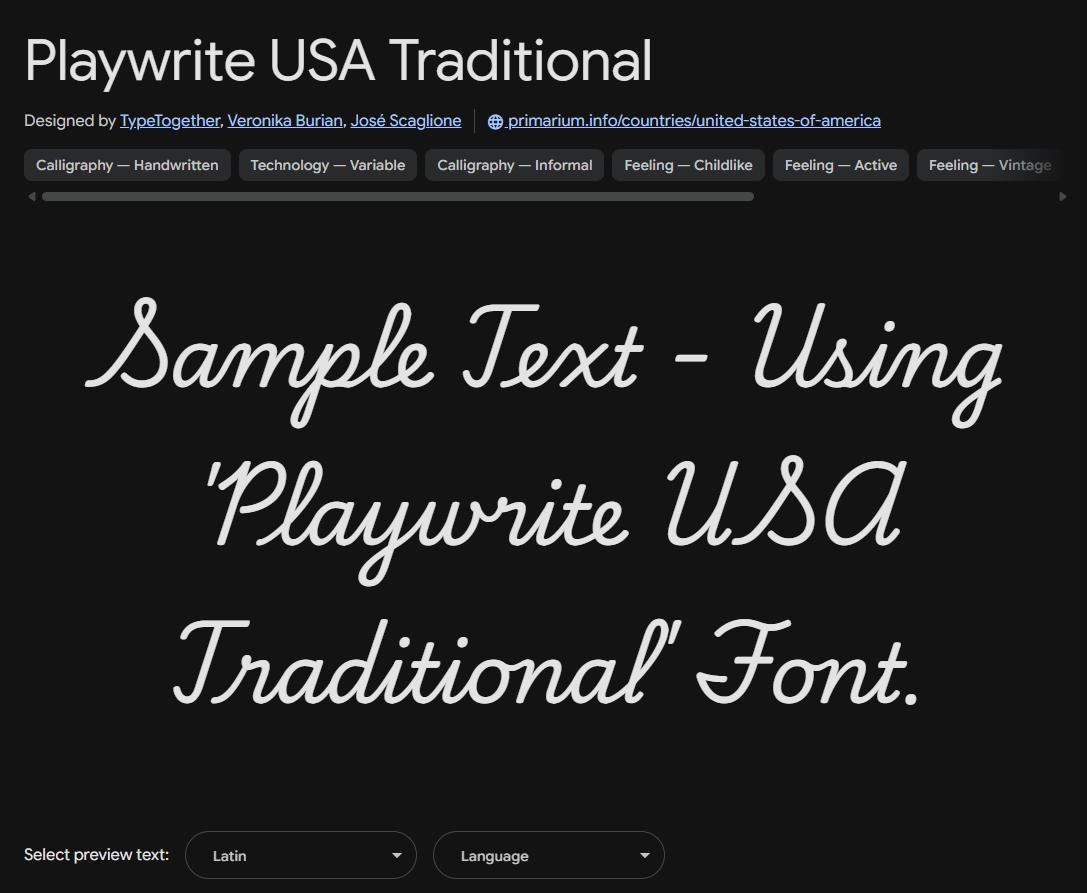
Playwrite USA Traditional, a meticulously engineered typeface from TypeTogether's Veronika Burian and José Scaglione, represents a significant evolution in pedagogical typography by integrating a single-axis variable font architecture tailored for primary education. This font family optimizes the transition from manuscript to cursive through sophisticated OpenType features and contextual alternates that emulate the fluid stroke modulation of traditional American handwriting standards. By leveraging a weight-based interpolation axis, it maintains structural integrity and optical balance across diverse digital environments, effectively mapping instructional glyph shapes to semantic web standards. This technical synergy allows for a dynamic rendering of script that bridges the gap between static digital text and the rhythmic, joined motions required for handwriting literacy, making it a robust, accessible tool for modern instructional design.
The Playwrite USA Traditional typeface represents a sophisticated leap in pedagogical typography, utilizing cutting-edge variable font technology to digitize the tactile nuances of informal calligraphy and regional handwriting models. Engineered with a dynamic weight axis and responsive glyph construction, this variable typeface captures a rugged yet happy aesthetic that bridges the gap between vintage educational primers and modern digital accessibility. Its informal, handwritten stroke modulation evokes an active, playful energy, meticulously designed to mirror the childlike spontaneity of early penmanship while maintaining the rhythmic consistency required for high-legibility rendering in diverse instructional environments. By synthesizing the warmth of traditional script with the precision of fluid interpolation, Playwrite USA Traditional offers a unique typographic solution that feels both timelessly nostalgic and technologically agile, transforming the static alphabet into a vibrant, active tool for contemporary literacy.
Because Playwrite USA Traditional is architected as a pedagogical scaffolding tool for primary education, it is fundamentally unsuitable for high-stakes technical sectors such as algorithmic trading, legal archival, or aerospace engineering documentation where optical neutrality and absolute glyph disambiguation are paramount. While the single-axis variable weight offers stylistic flexibility, the typeface's inherent cursive-linked joinery and calligraphic exit strokes increase cognitive load and trigger "crowding effects" in dense information hierarchies, making it a poor choice for high-frequency data dashboards or WCAG-compliant user interfaces. In professional environments requiring maximum legibility under time-constrained conditions, the rhythmic irregularity of its school-hand morphology disrupts the vertical and horizontal tracking essential for rapid information retrieval, rendering it technically incompatible with the rigid grid systems and sub-pixel rendering demands of modern enterprise-grade typography.
This script font is generally unsuitable for long-form body text because its cursive connections can cause visual fatigue over extended reading sessions. Eye-tracking studies show that high-stroke variance in cursive typefaces increases cognitive load, making them better suited for accent text than dense paragraph layouts.
Clean, geometric sans-serifs or sturdy slab-serifs provide a balanced contrast to the fluid, handwritten nature of this typeface. Pairing with a low-x-height sans-serif optimizes the vertical rhythm, ensuring that the elaborate ascenders and descenders of the script do not clash with surrounding typographic elements.
Yes, it is an excellent choice for logos requiring a personal, artisanal, or educational touch due to its clear, instructional letterforms. The font's consistent vector pathing and moderate stroke contrast allow for high scalability without losing legibility in small-scale favicon or social media profile applications.
While visually appealing for onboarding or decorative headers, it may struggle in functional UI components where quick scanability is required. Due to its cursive ligatures, the font requires careful CSS letter-spacing adjustments to prevent rendering artifacts on low-pixel-density displays commonly found in entry-level mobile hardware.
Earthy tones, muted pastels, and deep charcoal shades complement the organic feel of its handwritten strokes. Applying a high-contrast ratio of at least 4.5:1 against the background is critical to maintaining the integrity of its fine-line terminals and delicate connectors.
This font is highly effective for invitations, offering a sense of intimacy and tradition that mimics hand-lettered calligraphy. Its adherence to standardized instructional cursive forms ensures a high degree of accessibility for guests of all ages, unlike more abstract or hyper-stylized Spencerian scripts.
Using this font in all-caps is strongly discouraged because the cursive capital letters are designed to flow into lowercase characters, not each other. Typographic analysis reveals that the lack of kerning pairs for uppercase-only strings results in disjointed letter spacing that disrupts the intended fluid baseline of the script.
Tight leading causes the prominent ascenders and descenders to overlap, creating visual noise and significantly reducing legibility. Maintaining a line-height of at least 1.5 times the font size is necessary to accommodate the typeface's specific cap-height to descender-depth ratio without glyph collision.
For printed materials, a minimum of 12 points is recommended to ensure the fine connections between letters remain visible and do not bleed. At 300 DPI, the thin stroke width of this typeface requires substantial ink coverage to prevent the "break-up" of letterforms during high-speed offset printing processes.
The font bridges both themes, fitting vintage nostalgia through its handwritten look and modern minimalism through its clean, instructional structure. Its OpenType features allow it to integrate seamlessly into modern CSS workflows while preserving the humanist qualities inherent in traditional mid-century educational penmanship.